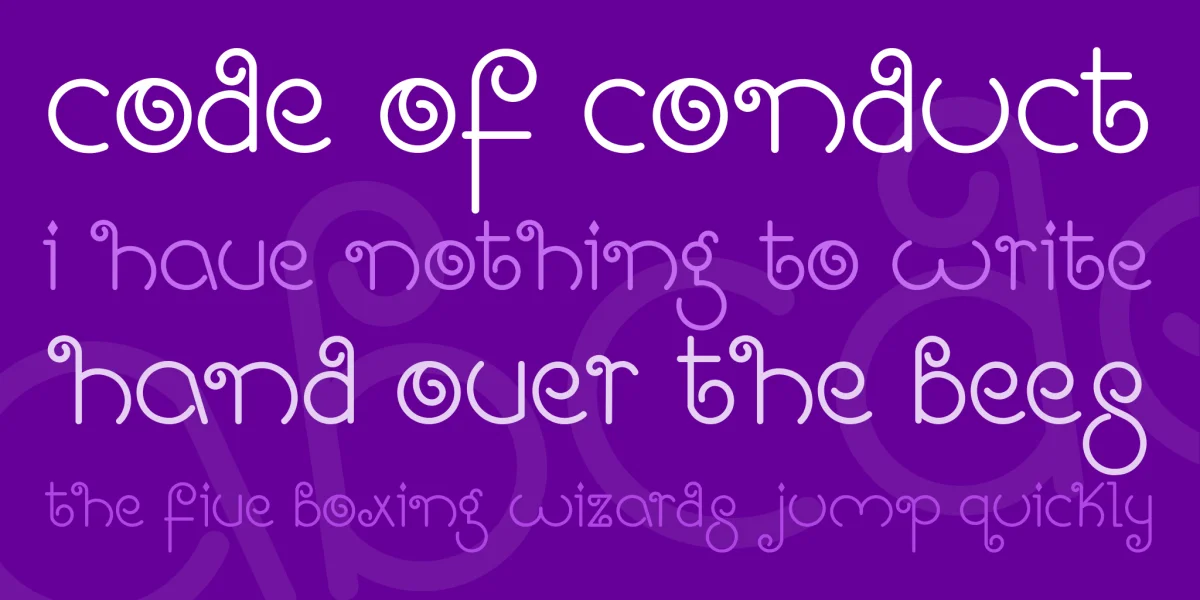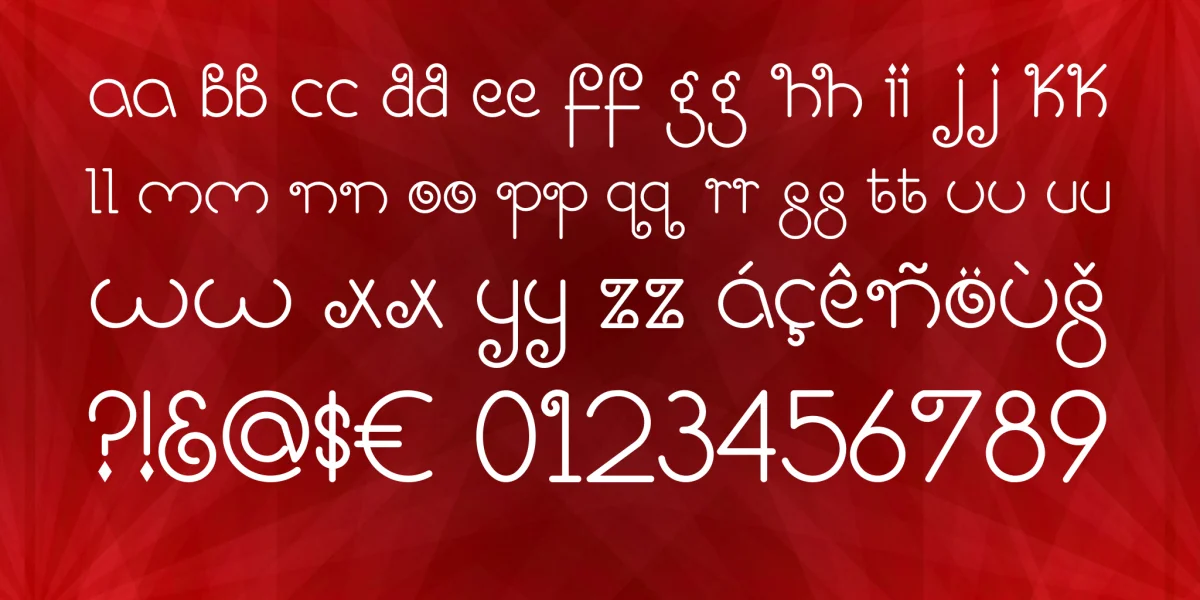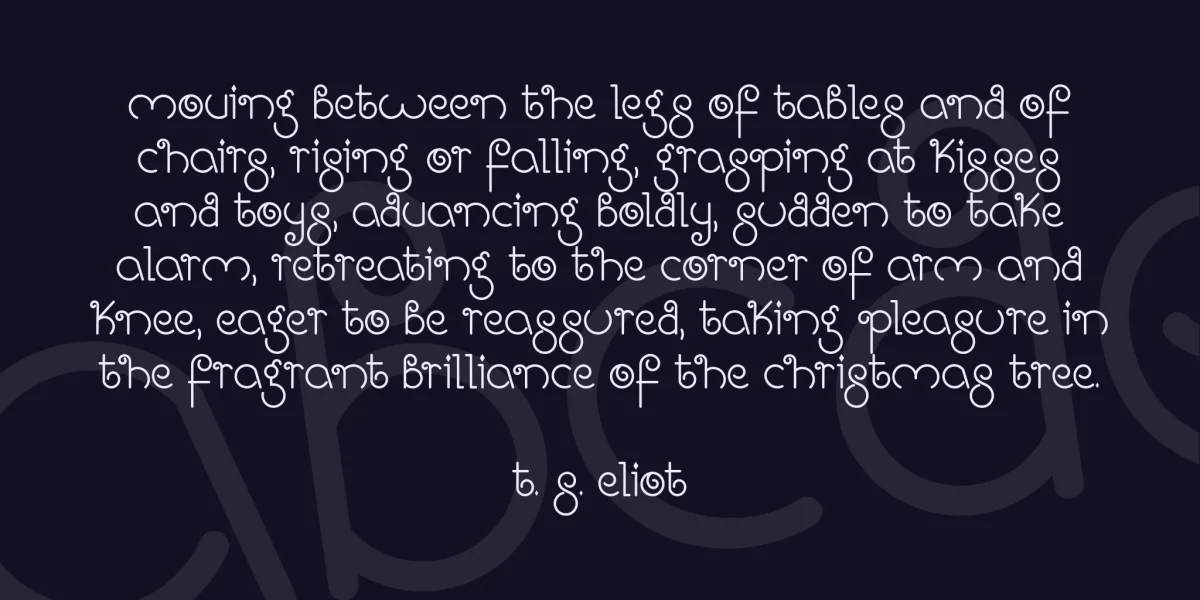
Bright Like A Diamond is a playful, lowercase display typeface. It features beautiful bold curls and stylish letterforms. It also includes fun diamond and heart symbols, which are PUA encoded for easy access. This typeface is great for adding brightness to any crafty and graphic design projects.